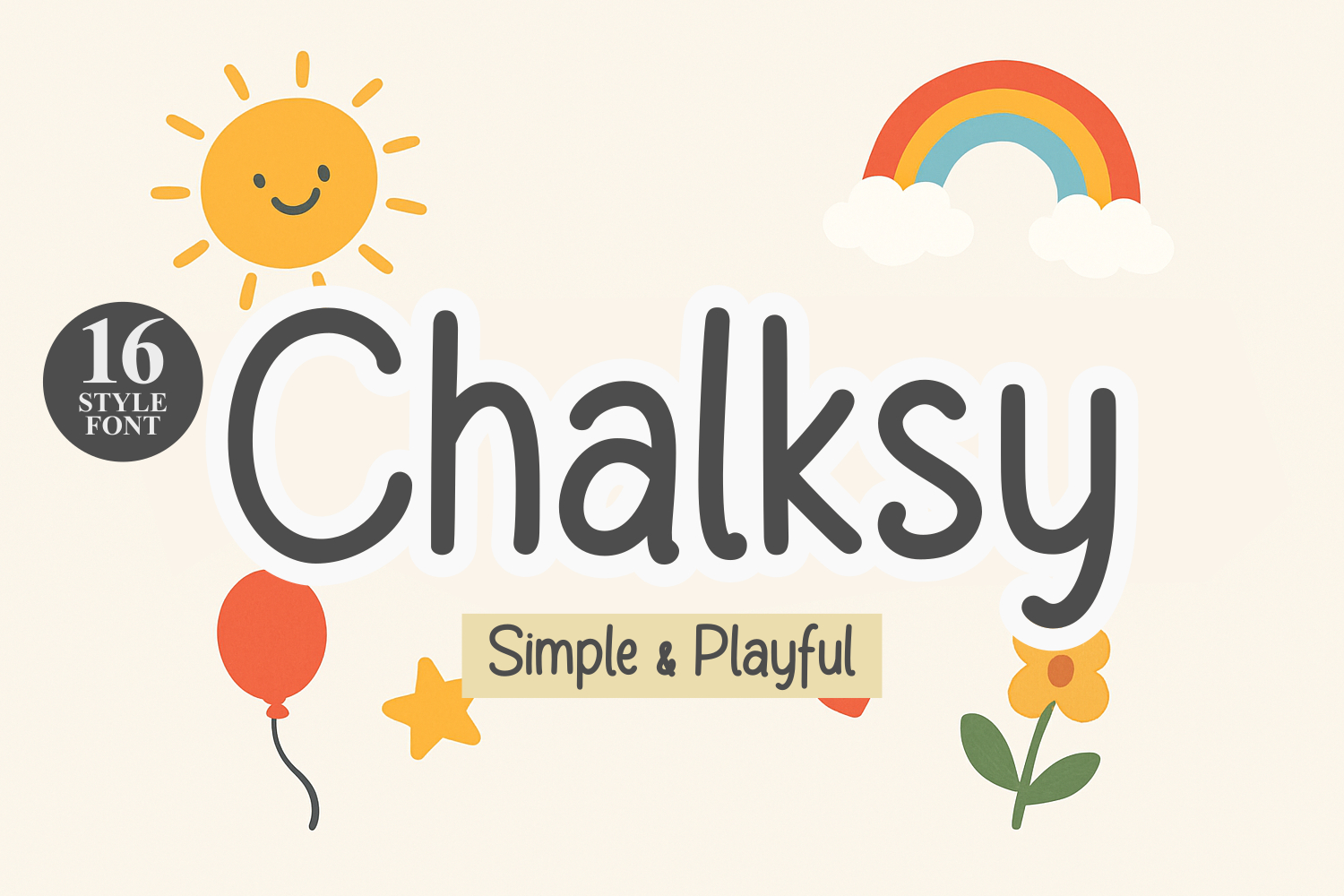
Chalksy is a cheerful, simple, and playful font that brings a fun vibe to every design. Packed with 16 different styles, this font is highly versatile for all kinds of creative projects. Its rounded and friendly characters make it perfect for kids’ themes, branding, posters, birthday invitations, motivational quotes, and digital crafts.
With its casual and joyful feel, Chalksy adds a warm and happy touch to any design. It pairs beautifully with cute illustrations, bright colors, and other creative elements.